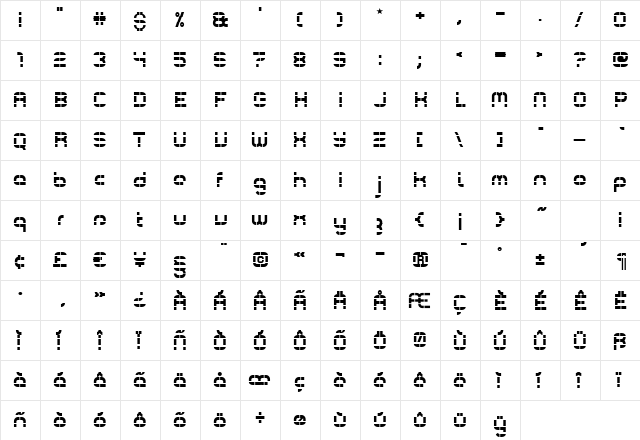
ComsatStation Regular Font Preview
ComsatStation Regular
ComsatStation Regular Font Details
Design Context for ComsatStation Typeface
ComsatStation is a composed and adaptable typeface that performs quietly and consistently across a wide range of design contexts.